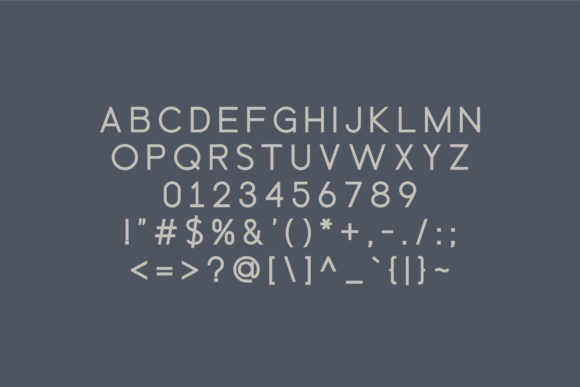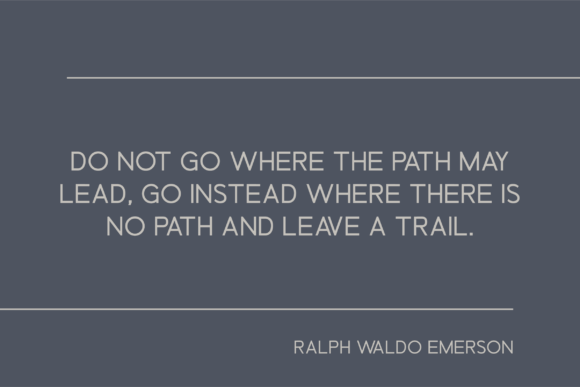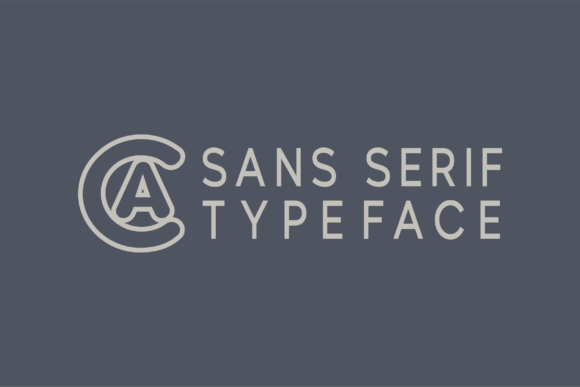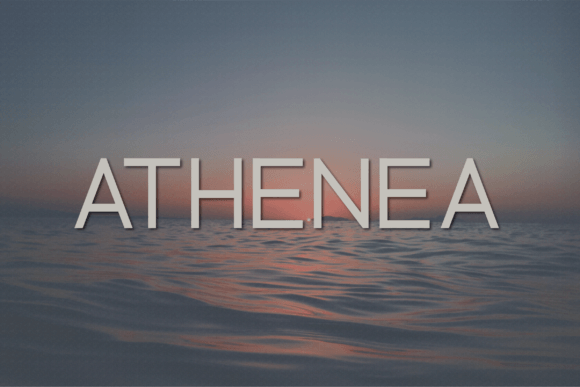
Athenea Font: Elevate Your Designs with Modern Elegance
In the world of typography, a font can make or break a design. For designers and crafters, finding the perfect typeface that exudes elegance and sophistication can be a daunting task. However, look no further than Athenea Font, a modern, classy sans serif typeface that is sure to elevate your designs to new heights.
What is Athenea Font?
Athenea Font is a sans serif typeface that boasts a clean and minimalist aesthetic, making it perfect for a wide range of design applications. This versatile font contains upper characters, numbers 0-9, and a range of punctuation and symbols, ensuring that you have everything you need to create stunning designs.
Key Features of Athenea Font
- Modern and Classy Design: Athenea Font features a sleek and contemporary design that is sure to impress. Its clean lines and minimalist aesthetic make it perfect for designs that require a touch of sophistication.
- Upper Characters, Numbers, and Symbols: This font includes a comprehensive range of upper characters, numbers 0-9, and punctuation and symbols, giving you everything you need to create professional-looking designs.
- Versatility: Athenea Font is an extremely versatile font that can be used for a wide range of design applications, including logos, weddings, invitations, quotes, advertisements, print, magazines, and more!
Athenea Font is a dream come true for designers and crafters who are looking for a font that can help them create stunning designs. Whether you’re working on a logo, invitation, or advertisement, this font is sure to impress. Its modern and classy design makes it perfect for:
- Logos: Create a professional and memorable logo that will help your brand stand out from the competition.
- Weddings and Invitations: Add a touch of elegance and sophistication to your wedding invitations, save-the-dates, and other stationery.
- Advertisements: Create eye-catching advertisements that will grab the attention of your target audience.
- Print and Magazines: Use Athenea Font to create stunning print materials, including magazines, brochures, and flyers.
Why Choose Athenea Font?
With so many fonts available, why choose Athenea Font? Here are just a few reasons why this font stands out from the rest:
- Unique and Modern Design: Athenea Font features a unique and modern design that will help your designs stand out from the competition.
- Highly Versatile: This font can be used for a wide range of design applications, making it a great addition to any designer’s toolkit.
- Ease of Use: Athenea Font is easy to use and can be easily integrated into your design workflow.
In conclusion, Athenea Font is a modern, classy sans serif typeface that is perfect for designers and crafters who are looking for a font that exudes elegance and sophistication. With its clean and minimalist aesthetic, comprehensive range of characters and symbols, and high versatility, this font is sure to elevate your designs to new heights. Whether you’re working on a logo, invitation, advertisement, or print material, Athenea Font is the perfect choice.